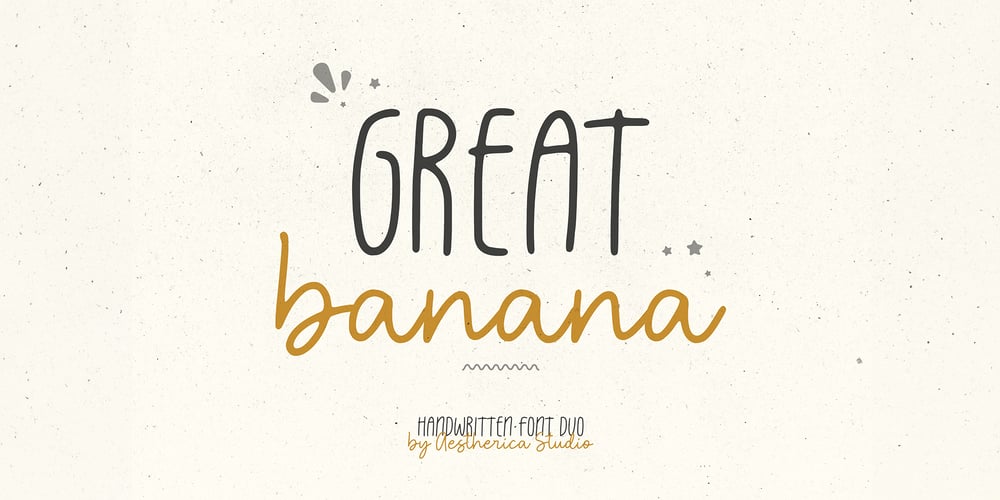
Great Banana Font Family was designed by Muhammad Fathurrohman and published by Aestherica Studio. Great Banana contains 2 styles and family package options. This font duo with modern handwritten look design styles, available on regular and script typeface.Great Banana is perfect for branding projects, logos, wedding designs, social media posts, advertisements, product packaging, product designs, label, photography, watermark, invitation, stationery, and any projects that need handwriting taste.